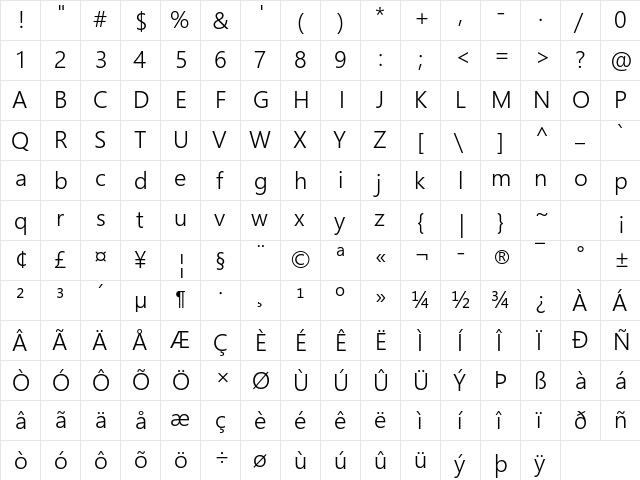
Leelawadee UI Semilight Normal
Design Context for Leelawadee UI Semilight Typeface
Leelawadee UI Semilight is a composed and adaptable typeface that performs quietly and consistently across a wide range of design contexts. The delicate stroke weight brings airiness and refinement to layouts.